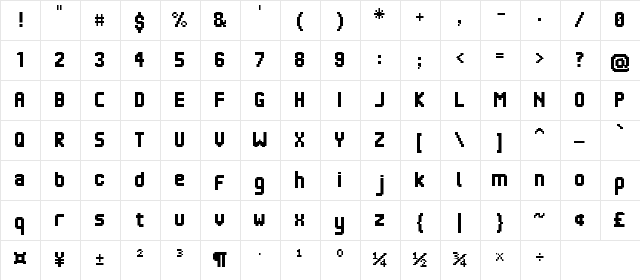
Pic0 Regular
| Foundry | Domenico Mazza |
| Designer | Domenico Mazza |
Design Context for Pic0 Typeface
Pic0 offers clean, dependable letterforms without strong stylistic allegiance, making it a practical choice for designers who need flexibility.